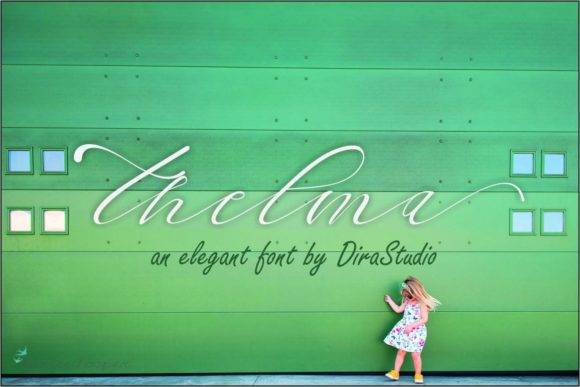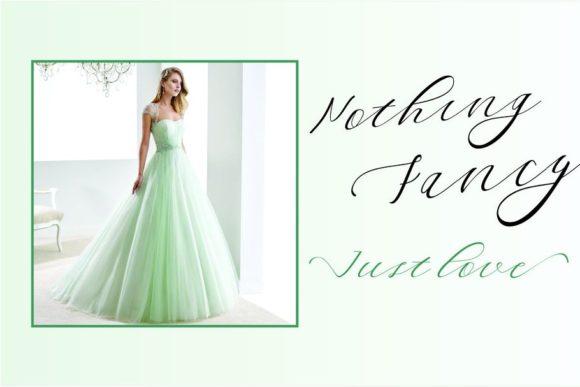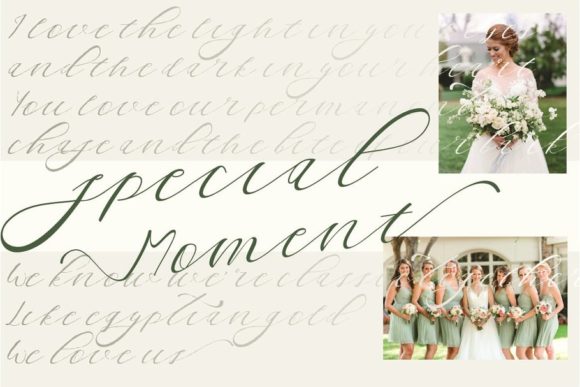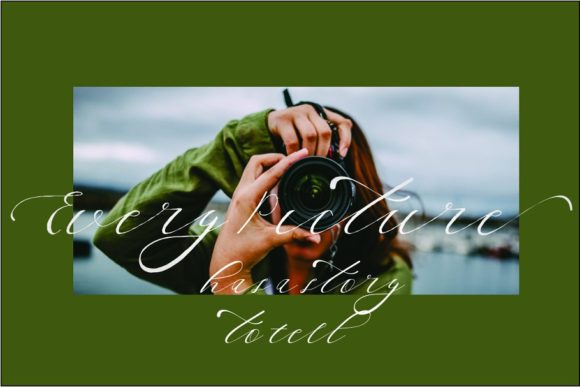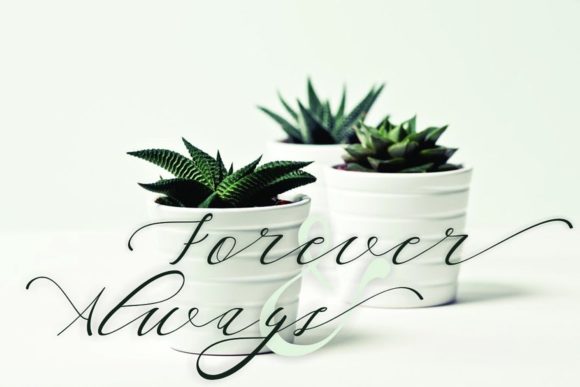
HomeScript FontsThelma Font Script Fonts Thelma Font FacebookTwitterPinterestWhatsApp Thelma Font Poster 2 Thelma Font Poster 3 Thelma Font Poster 4 Thelma Font Poster 5 About Thelma Font Thelma is a stylish handwritten font. It will add a romantic and elegant touch to your upcoming crafting projects! DOWNLOAD NOW People also explored Quote Superbold Font Kitchen Counter Font Farisky Marlline Font Be Mine Love Font Reagen Youth Font Honeymoon Font Sweet Romantic Font Realistic Mock-ups on Vintage Background 161 0 TagsThelma Font Previous articleChoco Letter FontNext articleMelonida Font LEAVE A REPLY Cancel reply Comment: Please enter your comment! Name:* Please enter your name here Email:* You have entered an incorrect email address! Please enter your email address here Website: Save my name, email, and website in this browser for the next time I comment. Personal Use Free Cretino Personal Use Free Read more about this font The Relapse Personal Use Free Read more about this font Sheiloria Personal Use Free Read more about this font Over the Top Personal Use Free Read more about this font BLOG Best Fonts for YouTube Videos: Make Your Thumbnails Stand Out Best Fonts for YouTube Videos: Make Your Thumbnails Stand Out Choosing the right font can make a massive difference in how your YouTube videos perform.... Exploring Font Trends Where to Buy American Fonts Online in 2024 Free Fonts Risk: Why Free Fonts Can Be Dangerous for Designers